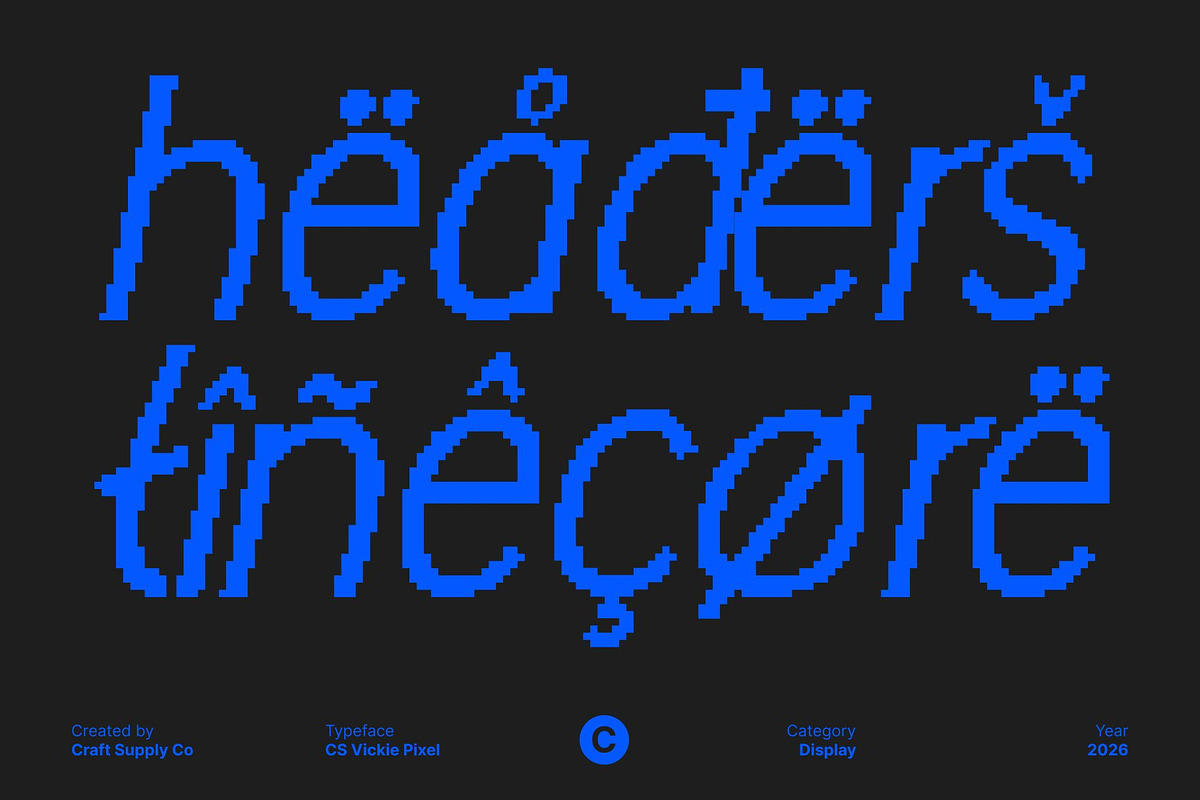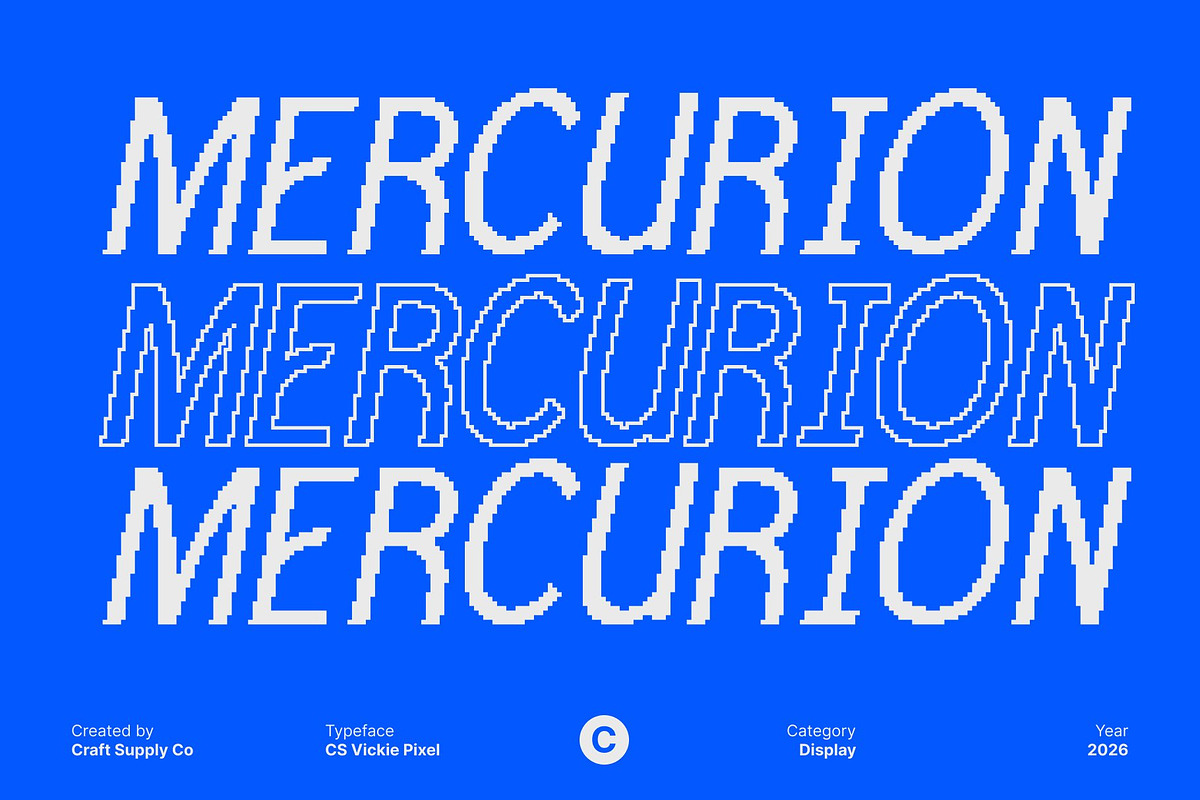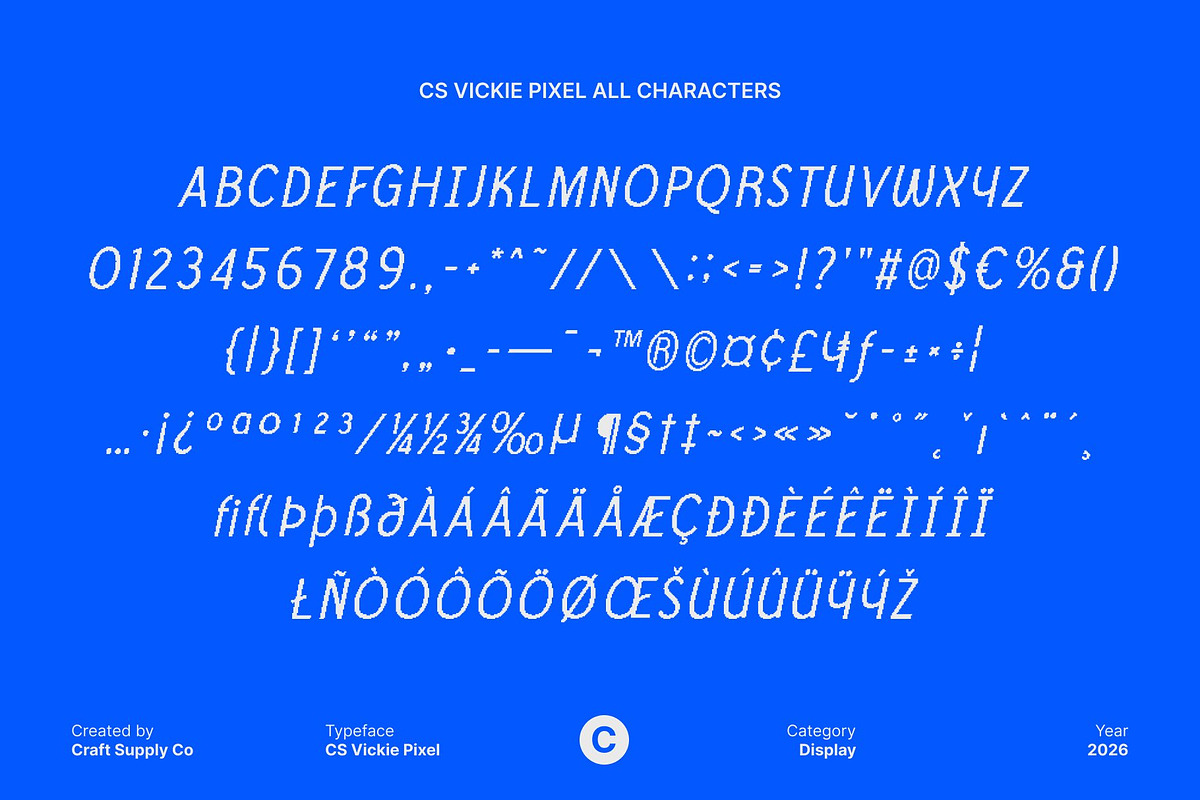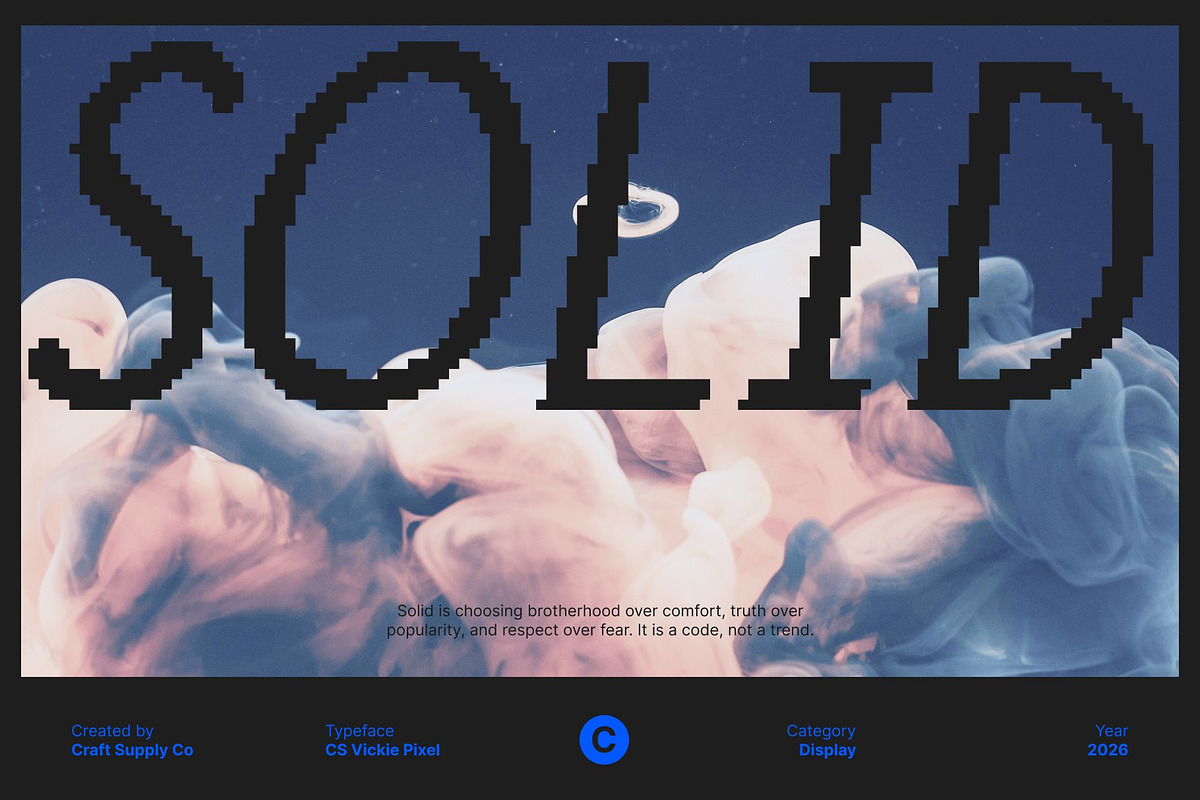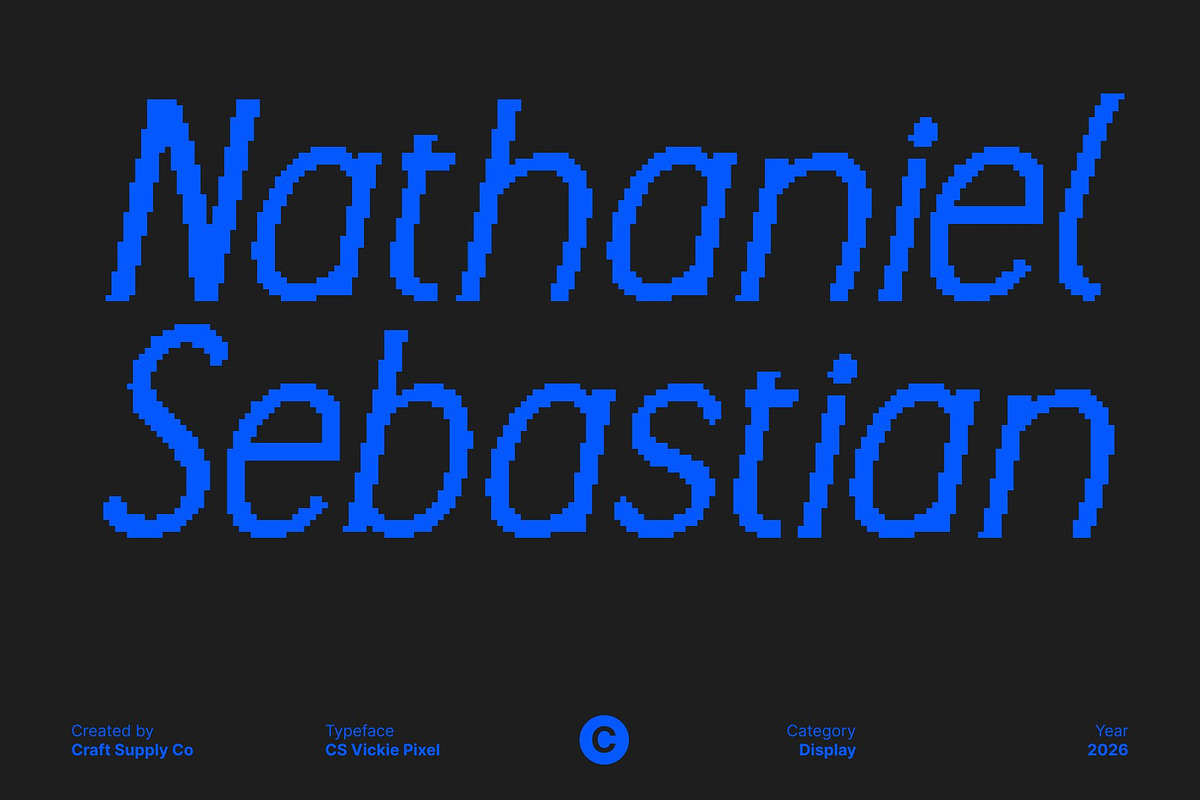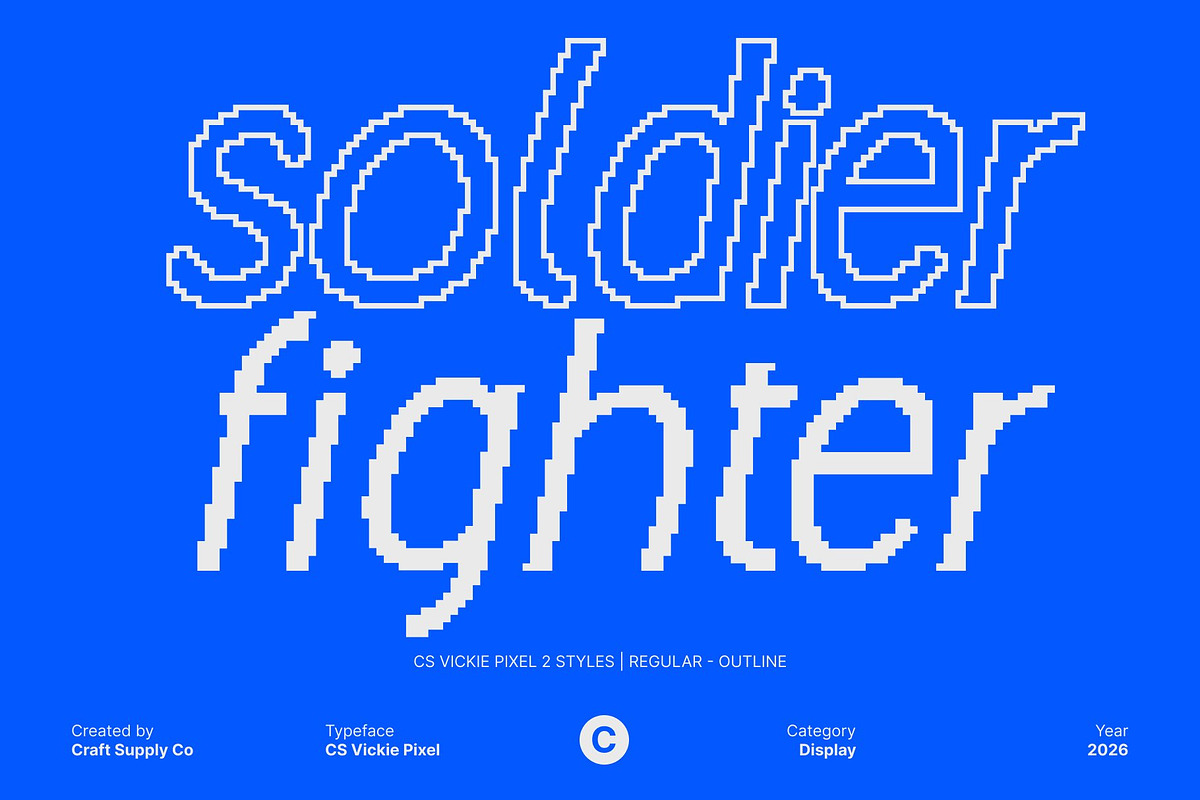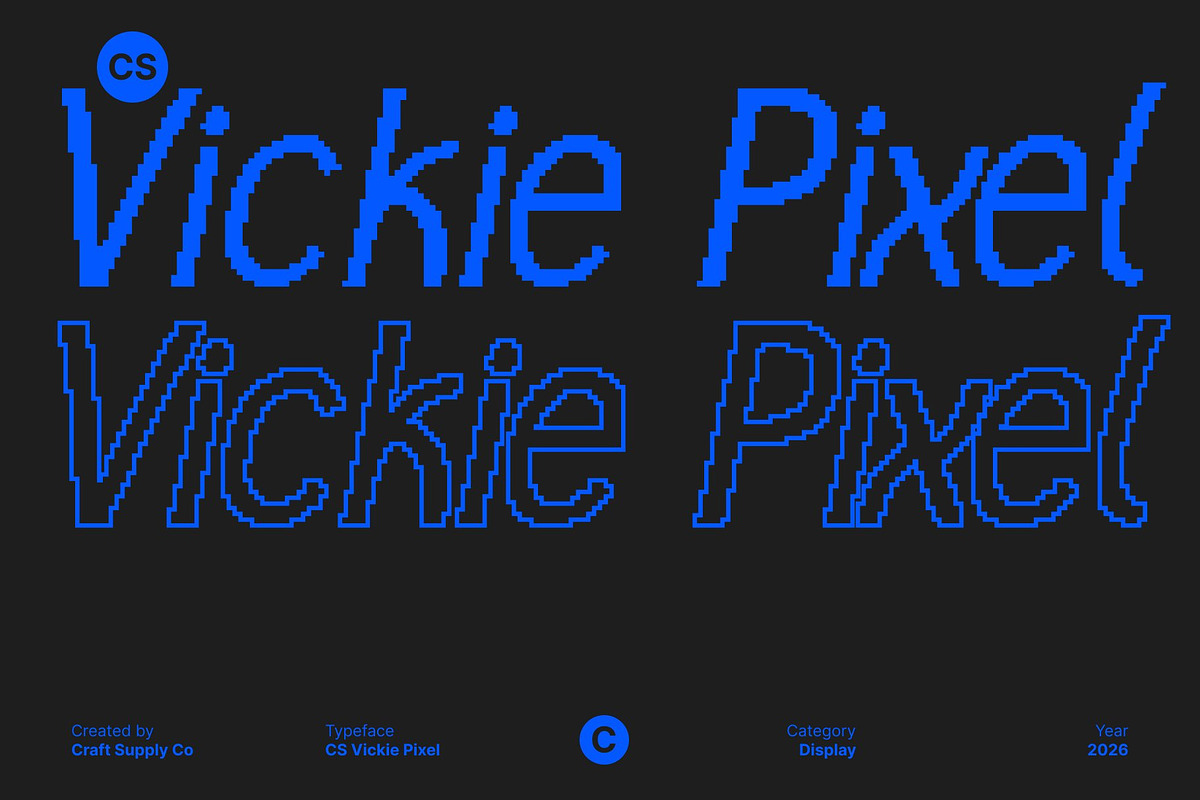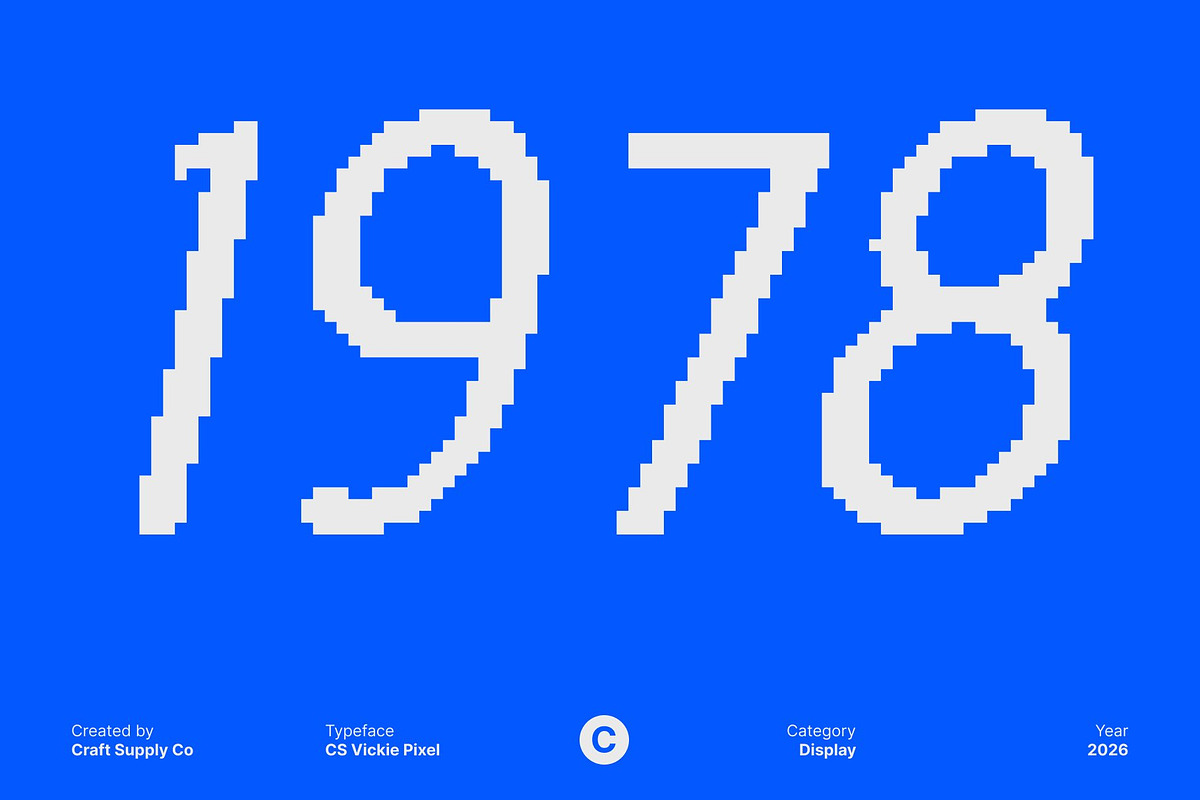
CS Vickie Pixel
CS Vickie Pixel – Clean & Friendly Modern Sans Serif Font
Modern Simplicity with a Soft Pixel Touch This is a modern sans serif font designed with a clean, approachable personality and enhanced by subtle pixel-inspired detailing. Its smooth curves and soft geometric structure create an inviting and friendly appearance, while the gentle pixel accents introduce a fresh digital nuance. The result is a typeface that feels warm, contemporary, and visually distinctive.
Playful Energy with Digital Charm Infused with lighthearted character, this font brings expressive charm to every design. The balanced shapes and subtle pixel edges add a modern-tech twist without losing its welcoming tone. Perfect for lifestyle brands, creative campaigns, and youth-oriented visuals, it delivers playfulness with polished structure.
Clean Construction for Clear Readability Despite its friendly style, the font maintains a strong sans serif foundation with balanced proportions and smooth strokes. The pixel elements are thoughtfully integrated to preserve clarity across display sizes and short text settings. This harmony between softness and digital precision ensures excellent readability in both print and screen applications.
Perfect for Logos, Titles, and Modern Branding This font shines in logos, social media graphics, posters, packaging, and editorial layouts. Its approachable aesthetic combined with subtle pixel flair makes it ideal for designers seeking a modern font that feels friendly, fresh, and digitally relevant. A perfect blend of warmth and contemporary pixel personality.
- CS Vickie Pixel Regular
- CS Vickie Pixel Outline